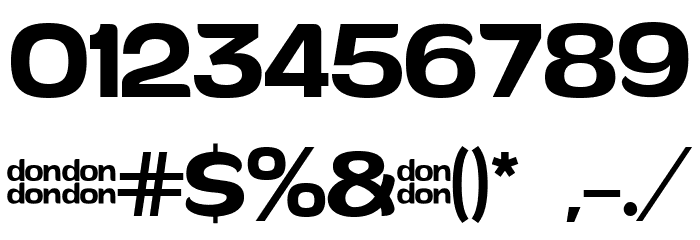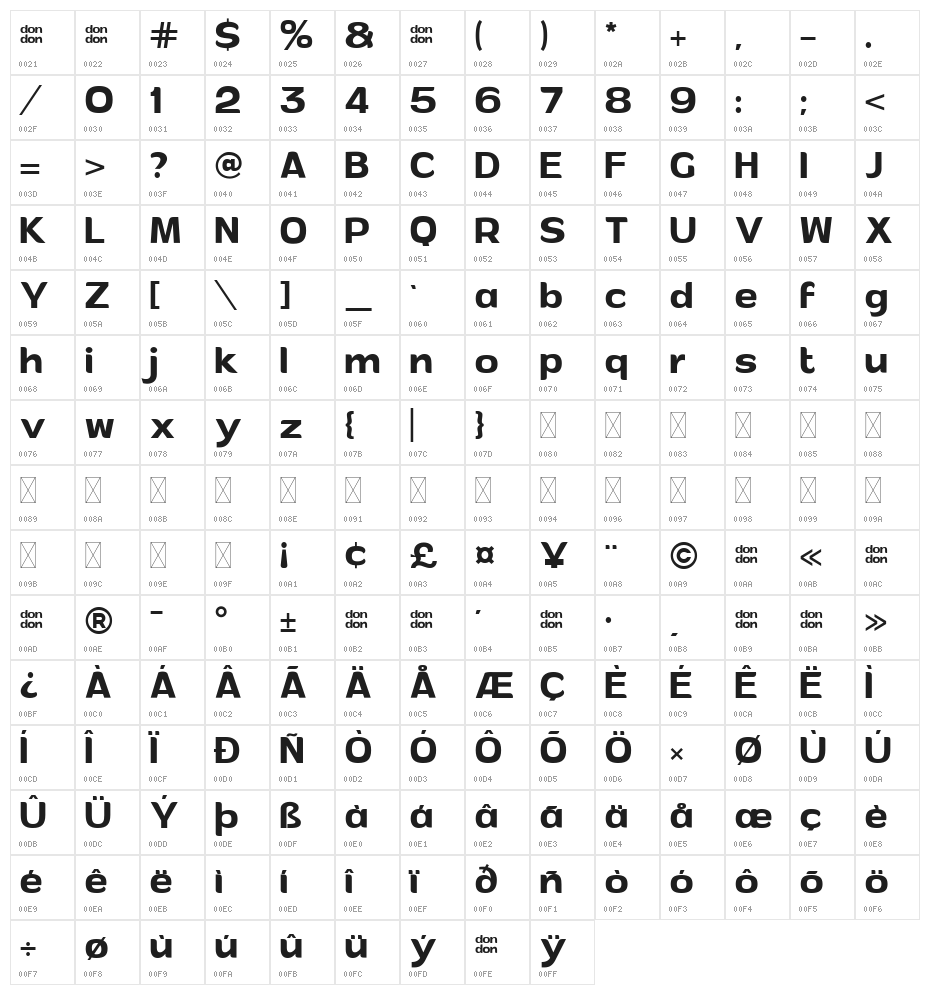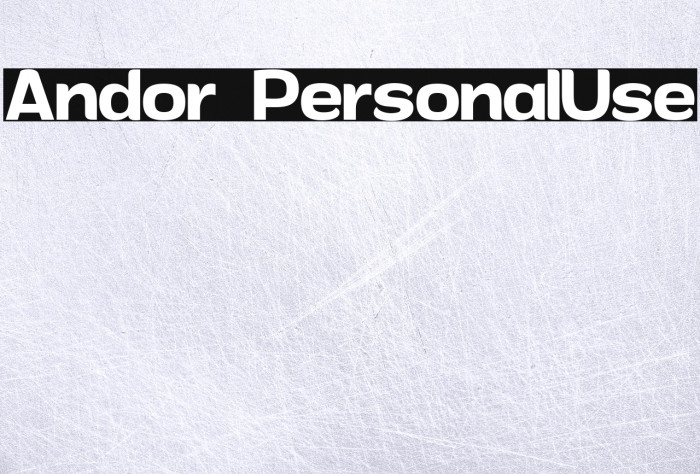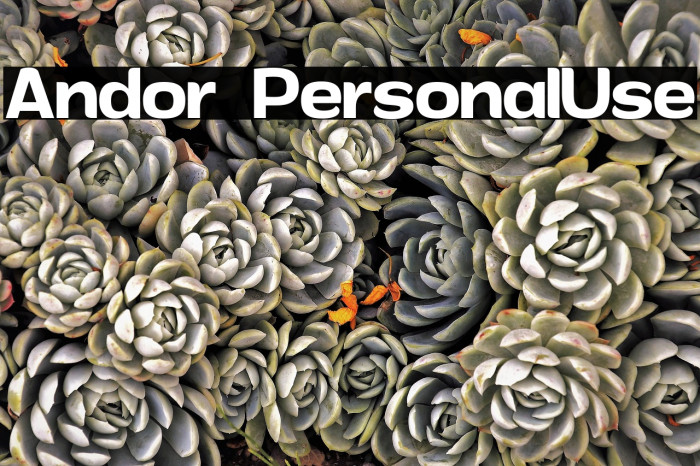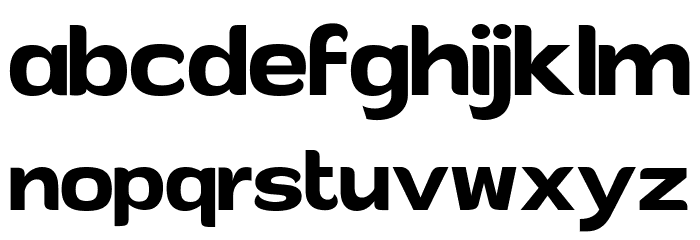
Andor PersonalUse Font
Andor PersonalUse Description
This font features a bold and modern sans-serif style with clean, geometric lines and a strong presence. The uppercase and lowercase letters are well-balanced, offering a uniform appearance that enhances readability. The numerals are consistent with the letterforms, maintaining the same weight and style. Special characters are distinct and integrate seamlessly with the overall design. The font's boldness and clarity make it suitable for impactful designs, ensuring that text stands out prominently.
| Proposed Projects | Ideal for branding, advertising, headlines, and digital media where a strong, modern presence is required. |